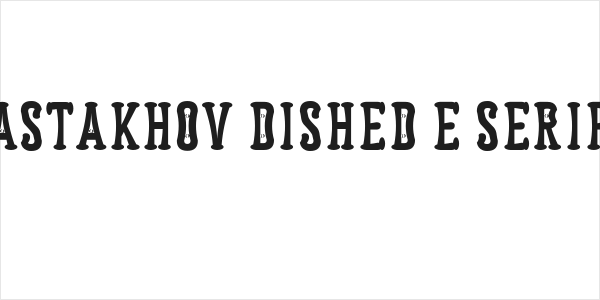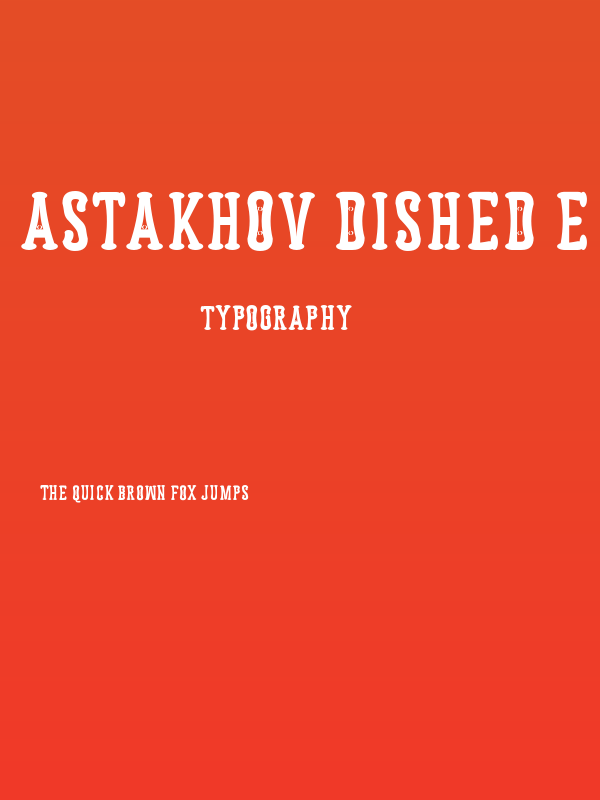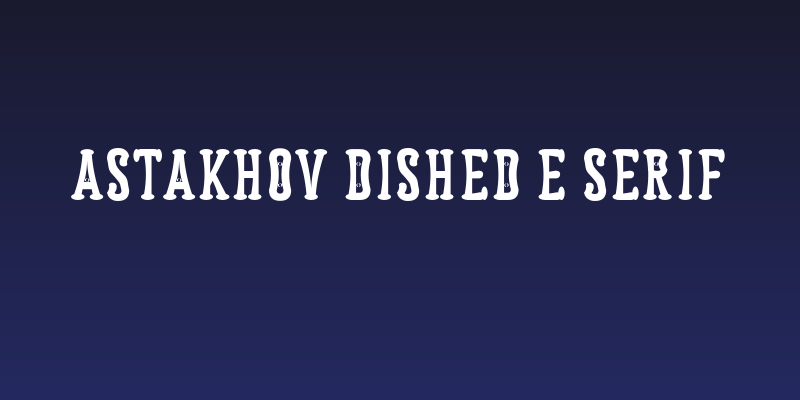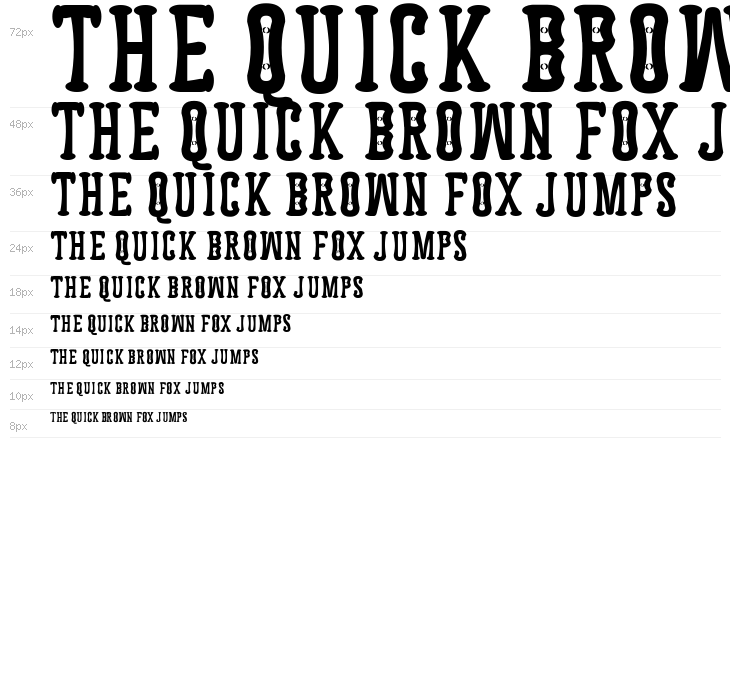
Astakhov Dished E Serif Font
Astakhov Dished E Serif Description
This font features a unique and bold design with a distinct vintage flair. Each character is crafted with a heavy stroke and a playful, decorative style that includes subtle serifs and rounded edges. The letters have a slightly condensed appearance, giving them a compact and robust look. The numbers and special characters maintain the same bold and decorative style, ensuring consistency across all elements. This font's quirky and eye-catching design makes it suitable for projects that require a touch of personality and creativity.
| Overall Style | Vintage, Decorative |
| Proposed Projects | Ideal for posters, logos, branding, and any design project that requires a bold and vintage aesthetic. |